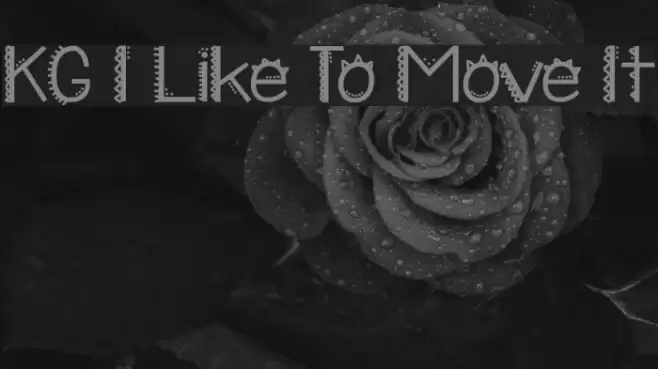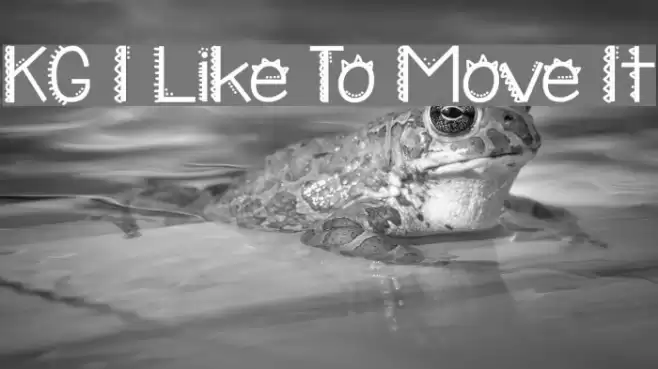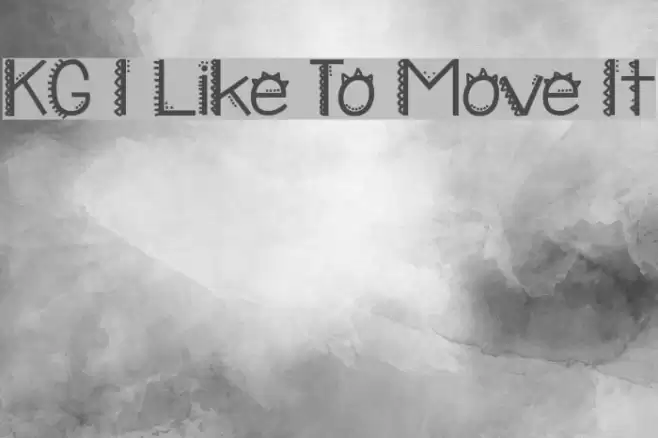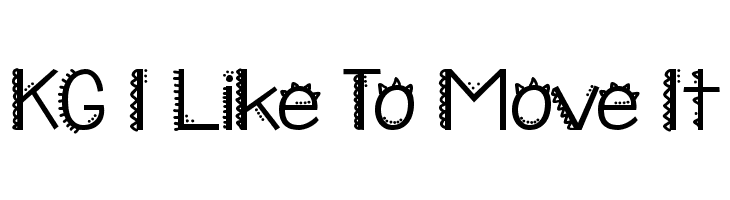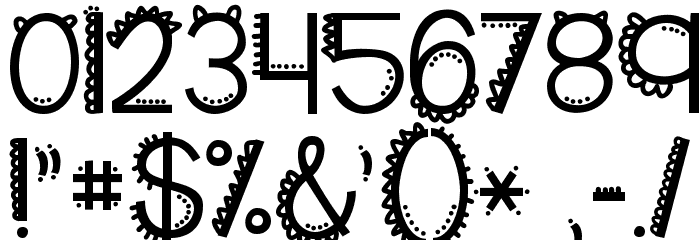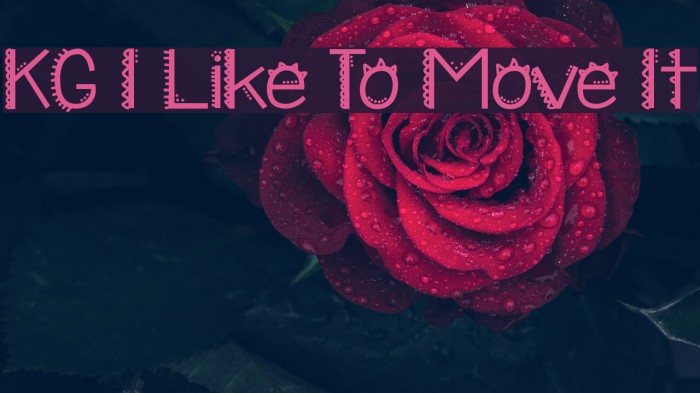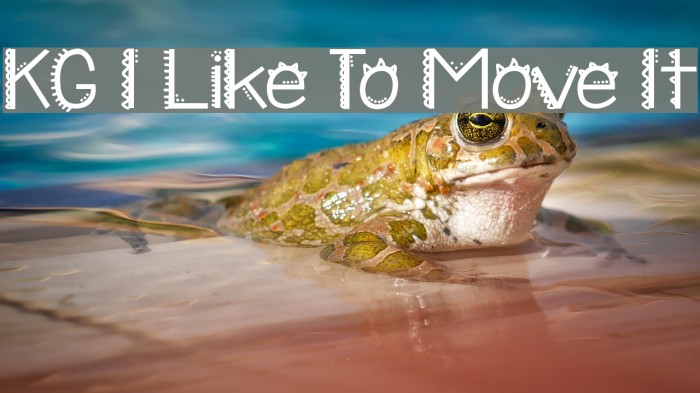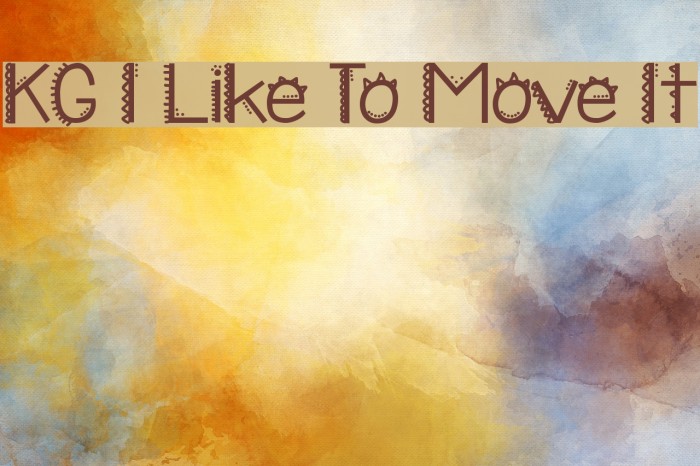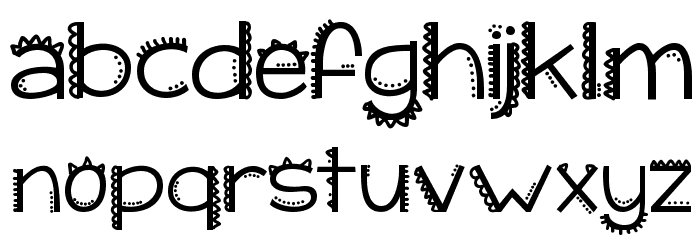
KG I Like To Move It Font
KG I Like To Move It Description
This playful and whimsical font features a unique design with decorative elements adorning each character. The uppercase and lowercase letters are embellished with dots and small triangular accents, giving them a lively and dynamic appearance. The numbers and special characters maintain this decorative style, ensuring consistency throughout the font. The overall look is bold and eye-catching, making it ideal for projects that require a fun and engaging visual element. The font's distinct style is perfect for children's materials, party invitations, and creative branding projects.
A playful, decorative font with whimsical accents and bold characters from Cartoon fonts.
- Proposed Projects: Ideal for children's books, party invitations, playful branding, and creative posters.
- Overall Style: Whimsical, Playful
- Use Case: Headlines, Logos, Invitations